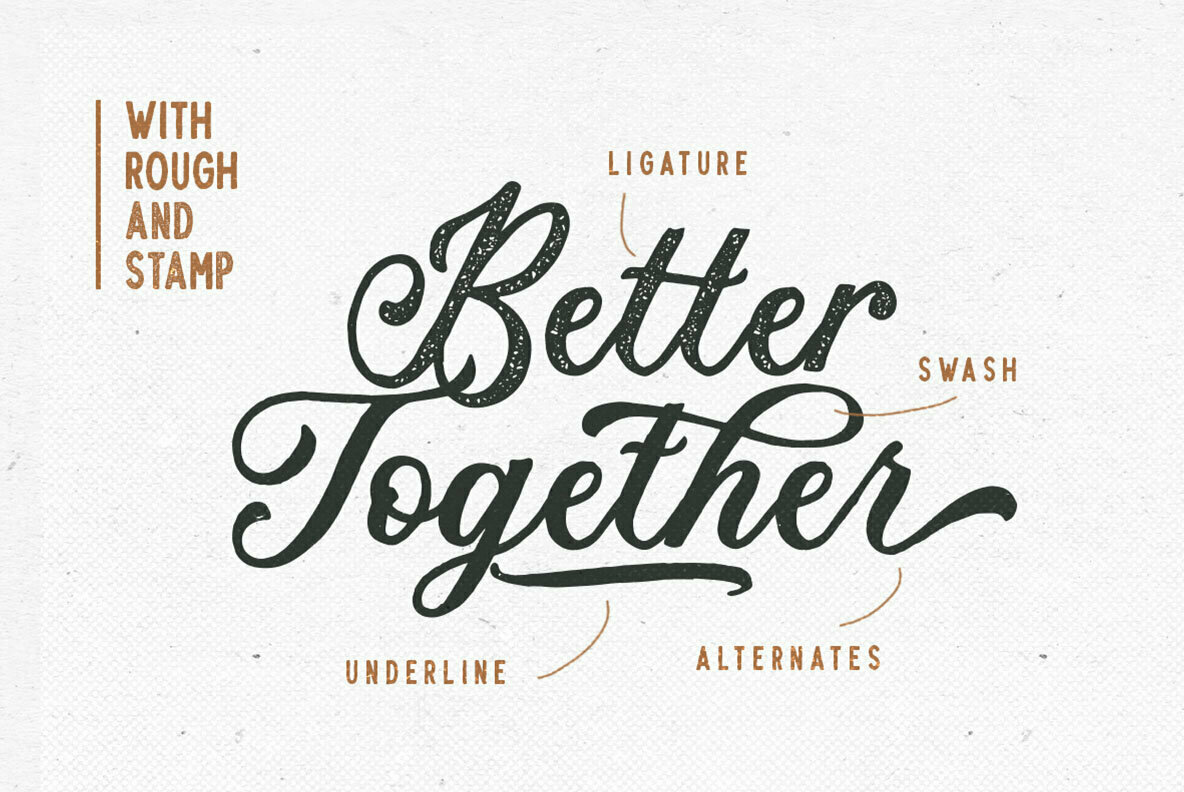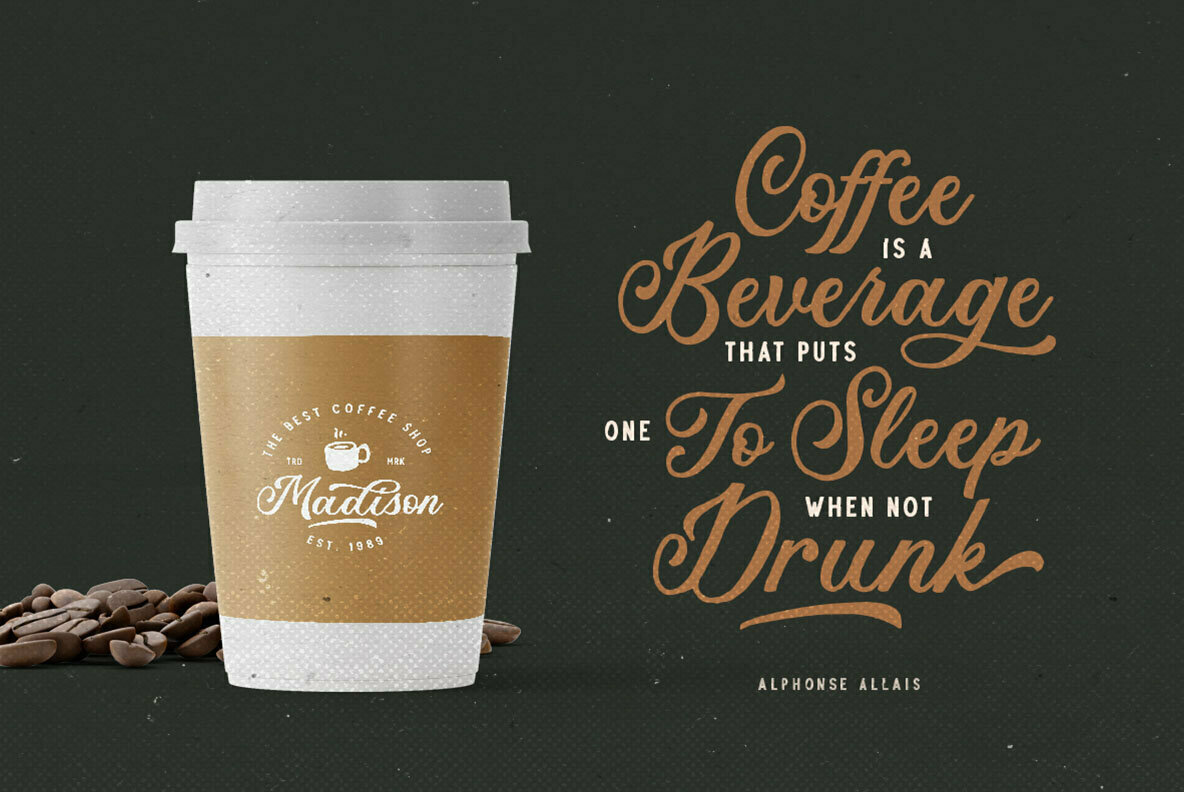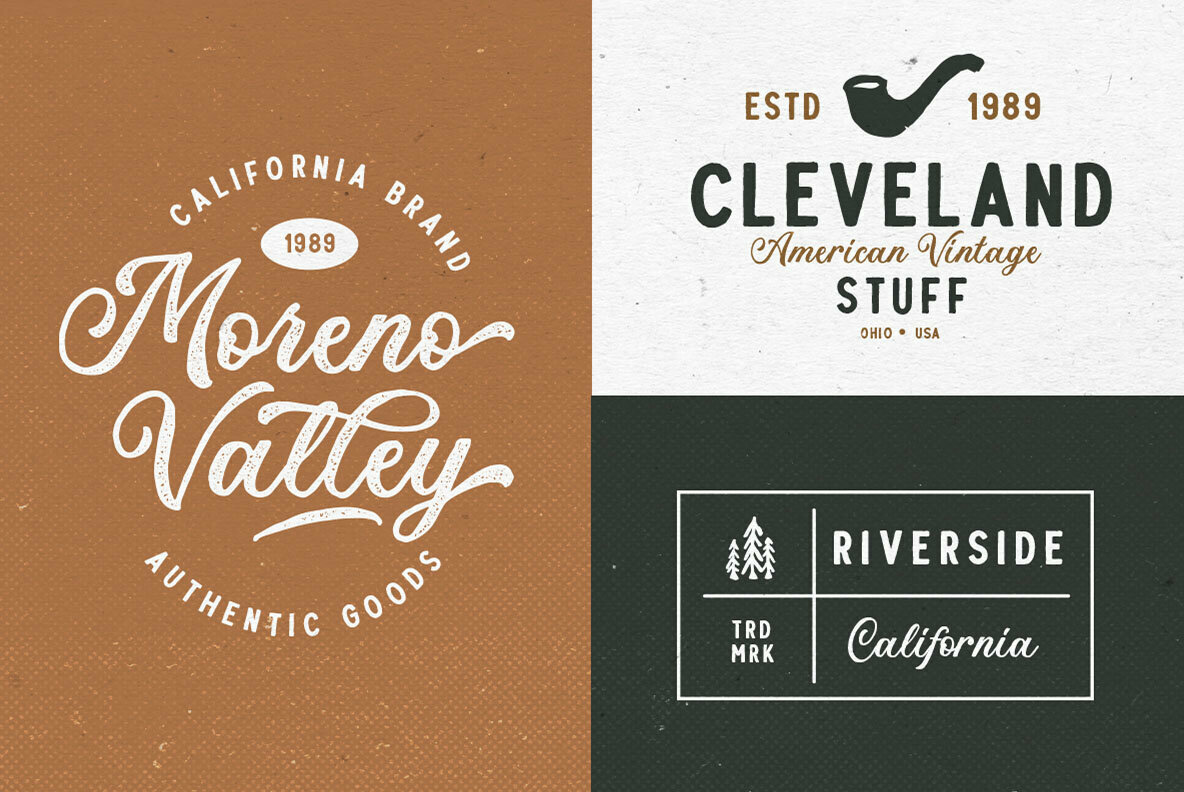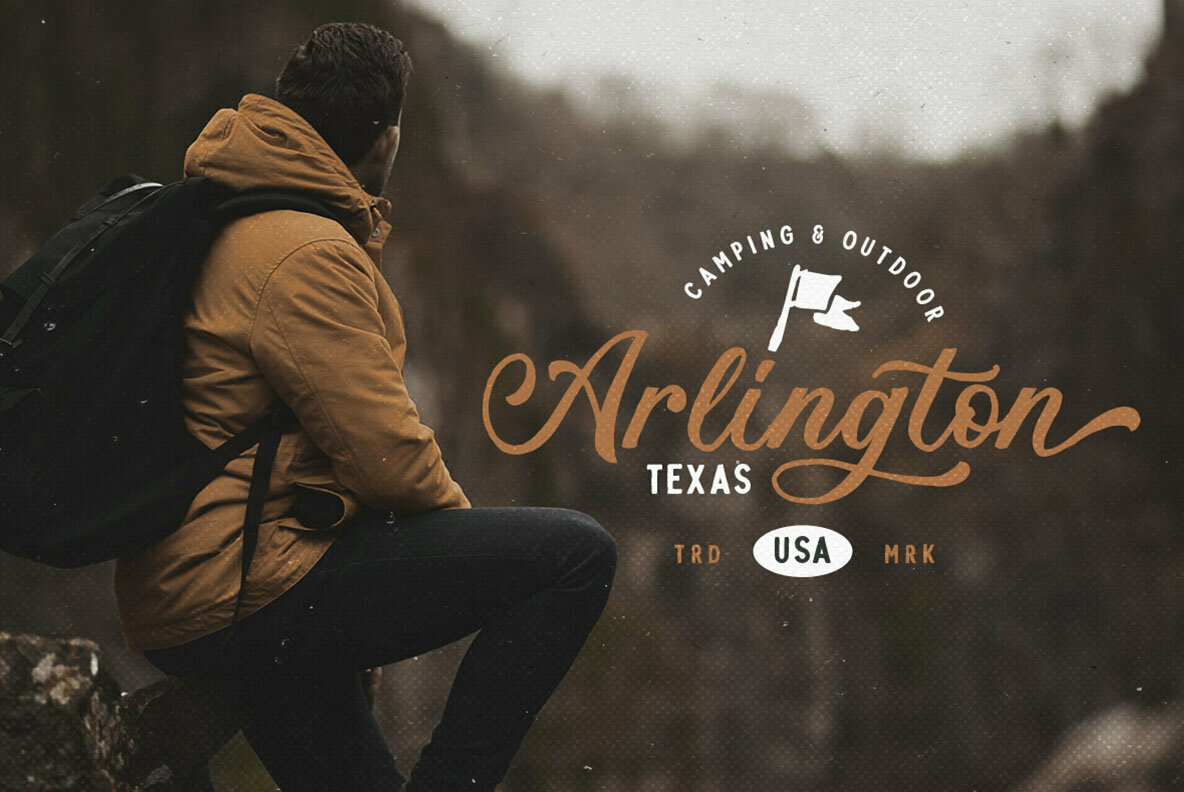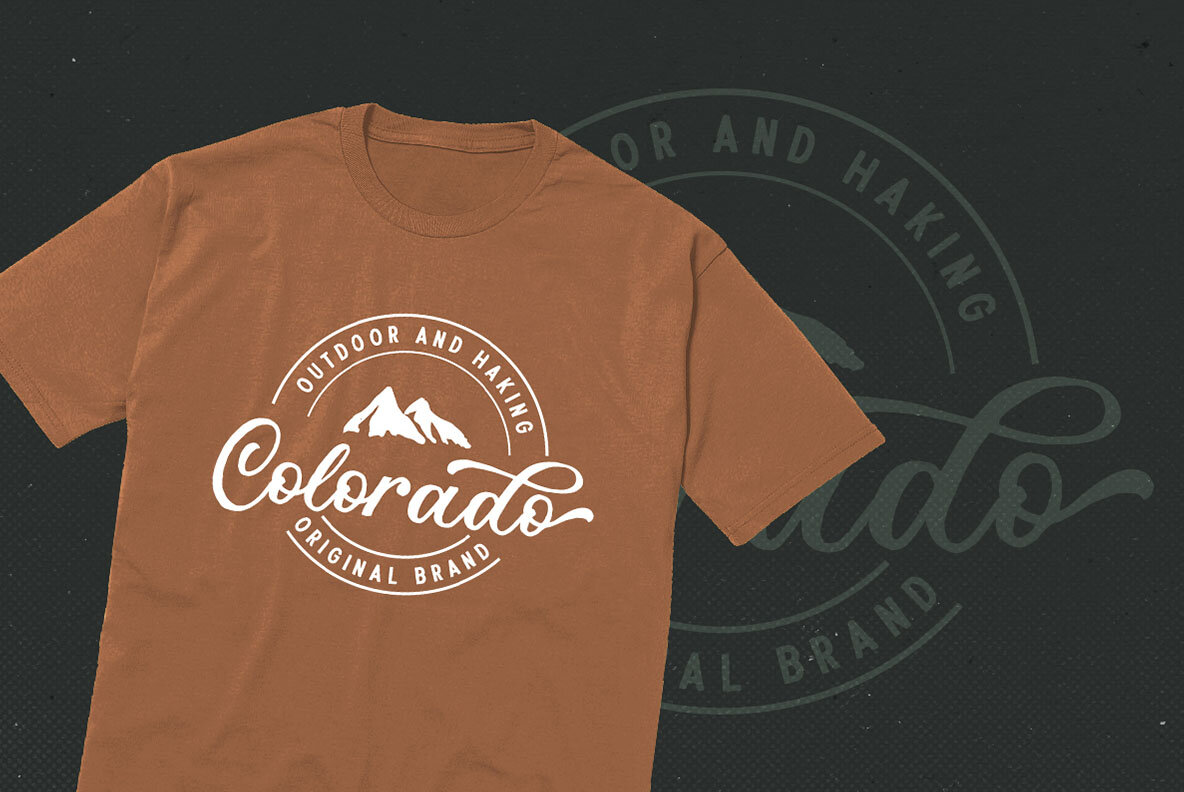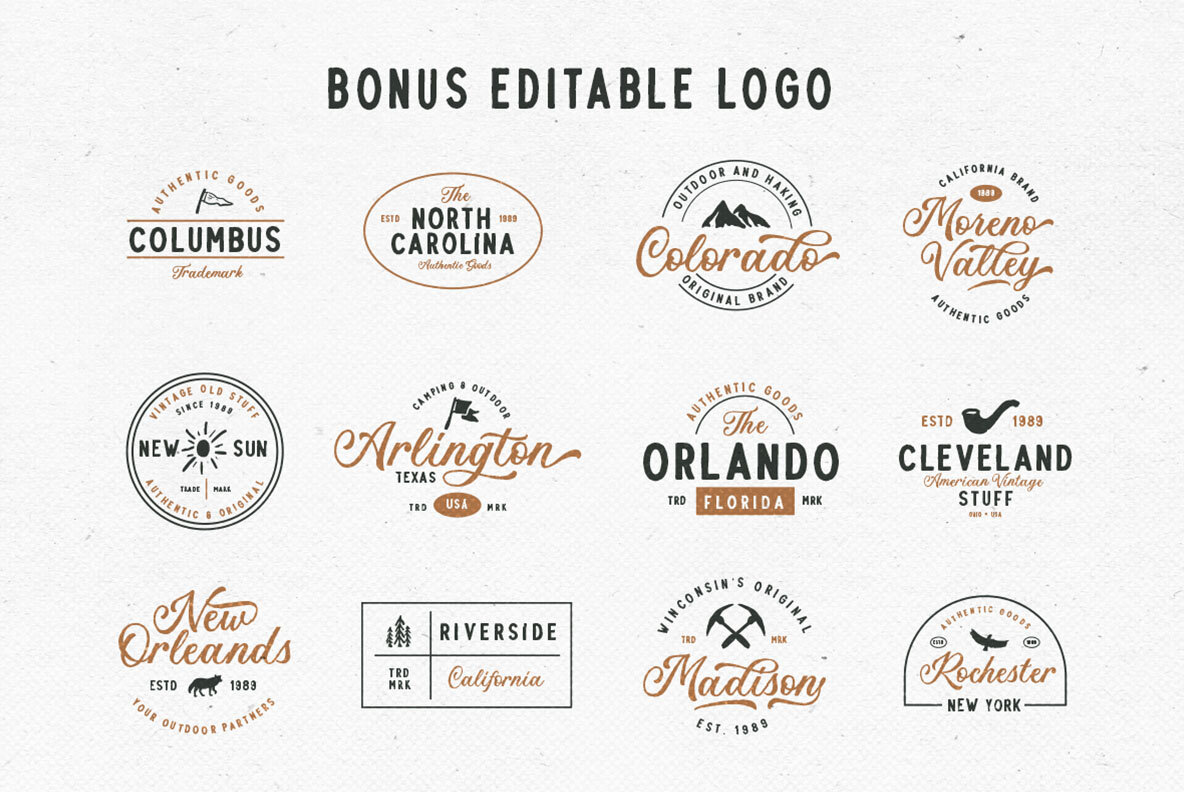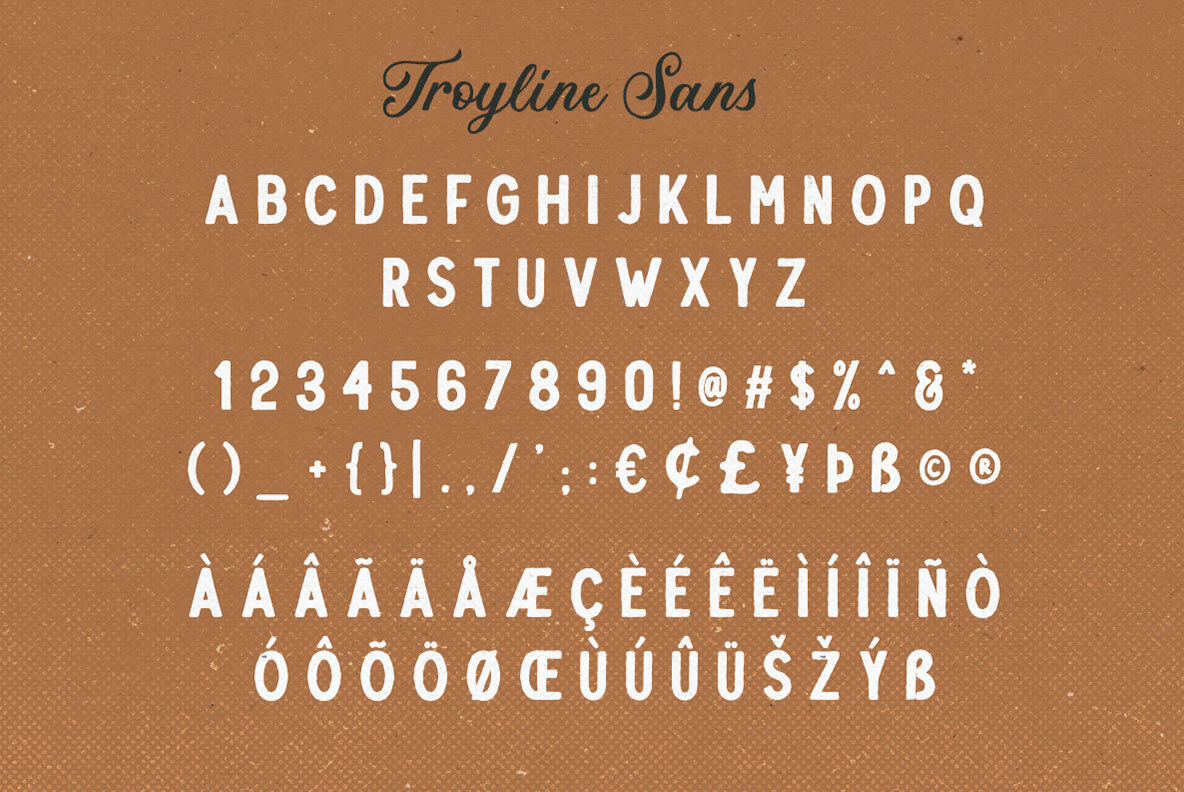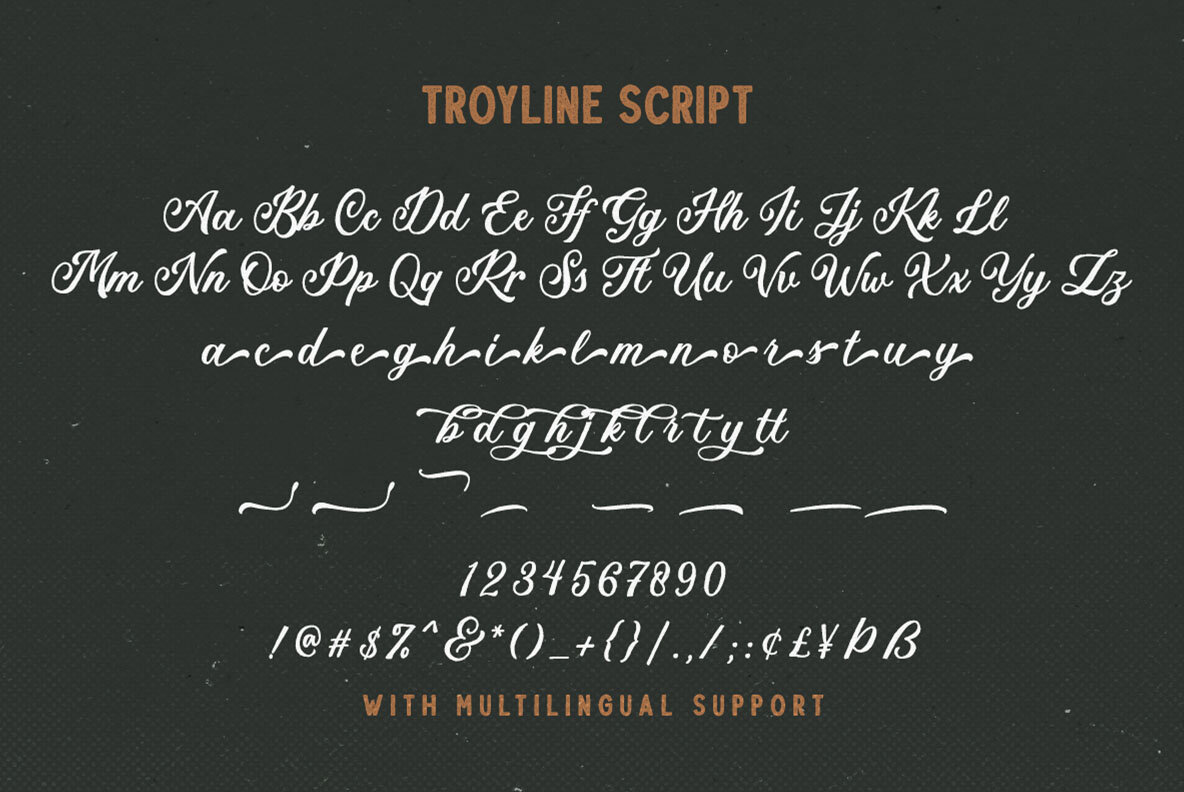
Troyline Font Duo
Troyline Script Regular
Troyline Script Stamp
Troyline Sans Regular
Troyline Sans Stamp
Troyline Font Duo offers an exquisite combination of organic script and sans serif styles, enriched with Rough and Stamp variations. Ideal for a broad spectrum of design projects, from branding logos to apparel design, this font duo provides a seamless blend of creativity and sophistication. Elevate your artwork with its adaptable features, including a customizable free logotype for personal use. Features: Troyline Font Duo enhances your toolkit with 12 editable logotypes in AI format, offering a tailored solution for your elaborate design needs.Troyline Font Duo: Versatile Organic Script and Sans Combo